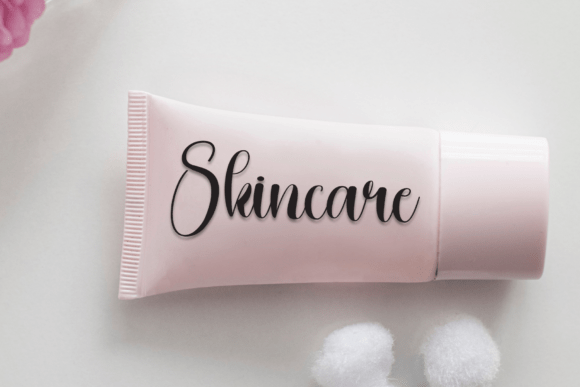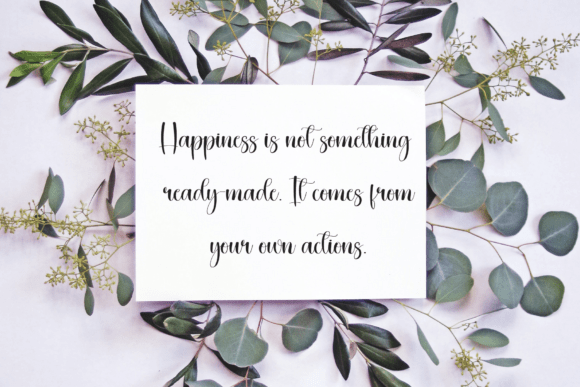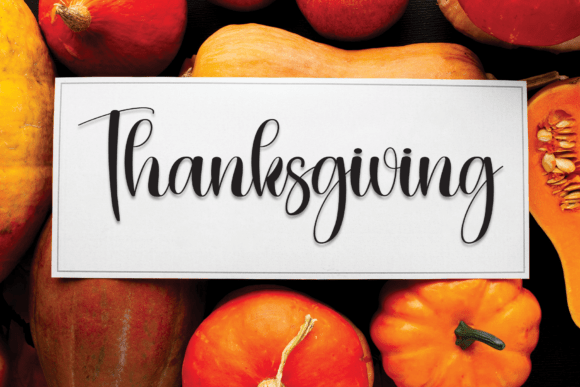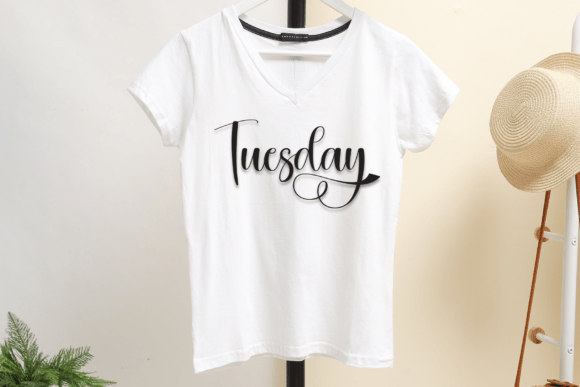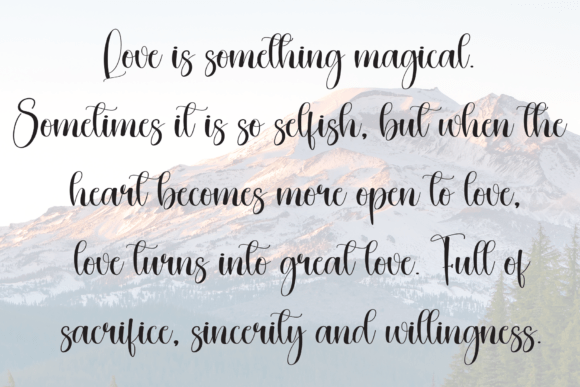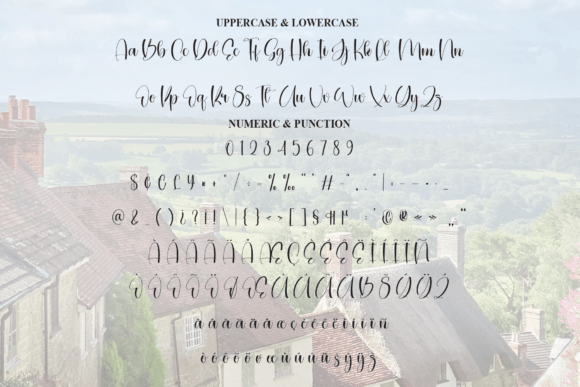
Cottages Font: Elevate Your Designs with Elegance and Charm
In the world of typography, fonts play a crucial role in conveying the tone and personality of a design. Among the numerous fonts available, Cottages Font stands out for its unique blend of elegance, charm, and sophistication. This beautiful font brings a touch of warmth and authenticity to any project, making it a perfect choice for designers and crafters looking to add a personal touch to their creations.
The Unique Characteristics of Cottages Font
Cottages Font is characterized by its smooth, flowing strokes and natural handwritten feel. The font’s design is inspired by traditional hand lettering, which gives it a playful yet sophisticated look. The strokes are carefully crafted to create a sense of movement and fluidity, making the font perfect for designs that require a touch of elegance and refinement.
Cottages Font is versatile and can be used in a wide range of design projects. Whether you’re creating a logo, invitation, greeting card, or social media graphic, this font is sure to add a touch of personality and charm to your design. Its natural and handwritten feel makes it perfect for designs that require a personal touch, such as:
- Logos: Create a unique and memorable logo that stands out from the crowd with Cottages Font.
- Invitations: Add a touch of elegance and sophistication to your invitations with this beautiful font.
- Greeting Cards: Create personalized greeting cards that capture the spirit of the occasion with Cottages Font.
- Branding: Use Cottages Font to create a consistent brand identity that reflects your personality and style.
- Quotes: Add a touch of inspiration and motivation to your quotes with this beautiful font.
- Social Media Graphics: Create engaging social media graphics that stand out from the crowd with Cottages Font.
Why Choose Cottages Font?
There are many reasons why designers and crafters choose Cottages Font for their projects. Here are a few:
- Unique and Elegant Design: Cottages Font has a unique and elegant design that sets it apart from other fonts.
- Versatile: This font can be used in a wide range of design projects, from logos to social media graphics.
- Easy to Read: Cottages Font is easy to read, making it perfect for designs that require a clear and concise message.
- High-Quality: This font is designed with high-quality and precision, ensuring that it looks great in any design.
Tips for Using Cottages Font
Here are a few tips for using Cottages Font in your designs:
- Use it sparingly: Use Cottages Font sparingly to add emphasis and personality to your design.
- Experiment with colors: Experiment with different colors to find the perfect combination that complements your design.
- Pair it with other fonts: Pair Cottages Font with other fonts to create a unique and interesting contrast.
- Pay attention to spacing: Pay attention to spacing and kerning to ensure that your design looks balanced and visually appealing.
Cottages Font is a beautiful and elegant font that can add a touch of personality and charm to any design. Its smooth, flowing strokes and natural handwritten feel make it perfect for designs that require a personal touch. Whether you’re a designer or crafter, Cottages Font is a great choice for anyone looking to elevate their designs with elegance and sophistication.